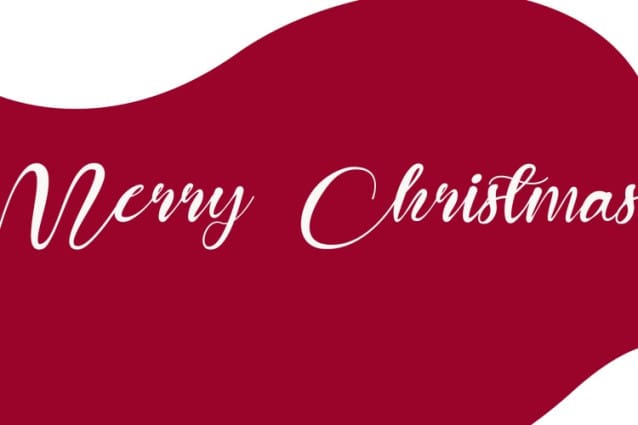
The Calist Font
The Calist Font is a script font with a fun calligraphy style. Suitable to be used as a complement to your designs, crafts, greeting cards, events, and others.